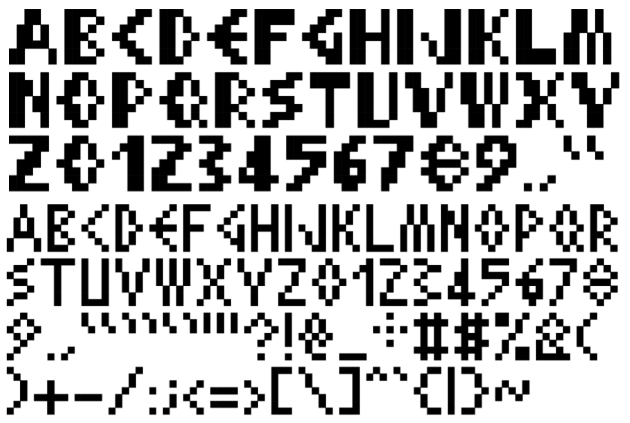
Aigaion - Pixel Art Font
72-glyphs 7x5 pixel font, mock Greek style, regular and bold. Perfect for Game Boy games development, pixel art, and general retro look.